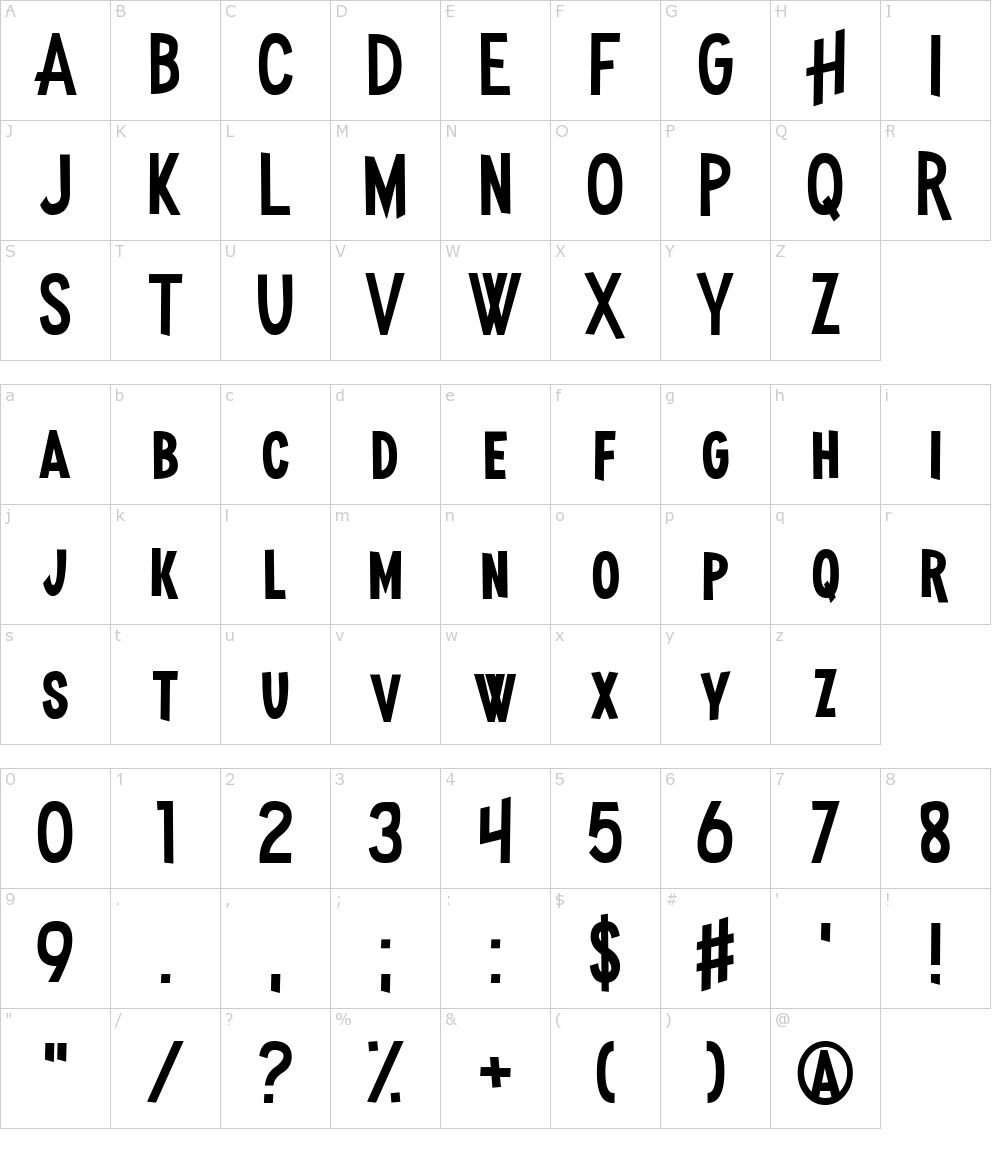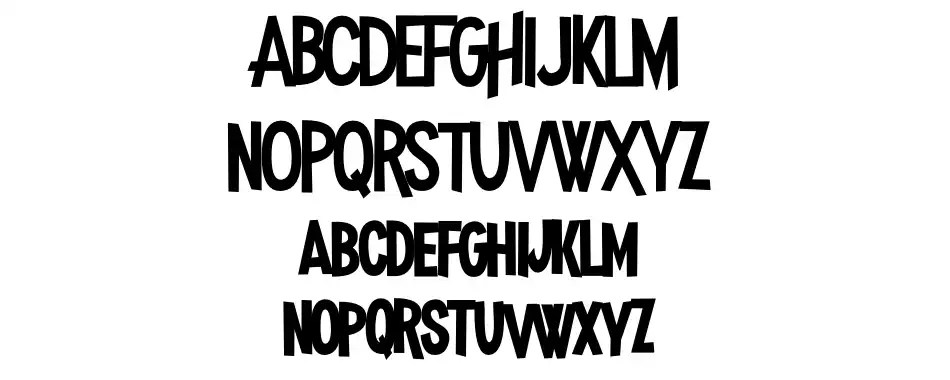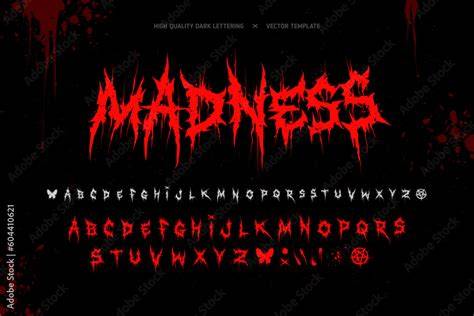
A Comprehensive Guide To Madness Fonts In 2023
What Are Madness Fonts?
Madness fonts are a unique type of typeface that has gained tremendous popularity in the last few years. They are characterized by their bold, colorful, and unique designs that are often described as “madness”. They are typically used in logos, branding, and other design projects to express a sense of creativity and excitement. As the name implies, madness fonts are often used to capture the craziness of life and the ever-changing nature of the world.
The popularity of madness fonts has grown dramatically in recent times, with more and more people taking an interest in these unique typefaces. While some may view madness fonts as a bit too “out there” for their own tastes, it’s hard to deny the impact they can have on any design project. By using these typefaces, designers can create a unique and exciting look that stands out from the crowd and expresses a certain sense of creativity.
How to Find Madness Fonts in 2023
Finding madness fonts in 2023 is easier than ever before! With the proliferation of online typeface libraries, designers have access to a seemingly infinite selection of madness fonts to choose from. Many of these libraries also offer a variety of options such as different weights, styles, and versions of madness fonts, allowing designers to easily customize their designs to their needs.
In addition to online libraries, many typeface designers also offer their own madness fonts. These typefaces often have a more personal touch and can help to create a unique and original design. It’s also worth noting that many of these typefaces are free to use, so designers can experiment with different madness fonts without having to break the bank.
What to Consider When Using Madness Fonts
While using madness fonts can be a great way to create a unique and eye-catching design, it’s important to consider a few things before using them. Firstly, it’s important to make sure that the madness font you choose is appropriate for the project you are working on. Madness fonts are best when used to create designs that convey a sense of playfulness and creativity, so it’s important to make sure that the font you choose is appropriate for the tone of your project.
It’s also important to think about the legibility of the font. While madness fonts can be a great way to create an exciting and unique design, they can also be difficult to read if they’re not used correctly. When choosing a madness font, make sure to look at the font’s x-height and contrast, as these can make a huge difference in how readable the font is.
Madness fonts have become increasingly popular in recent years, and for good reason. They can be a great way to add a unique and creative touch to any design project. With the proliferation of online typeface libraries and typeface designers, finding the perfect madness font in 2023 is easier than ever before. Just make sure to consider the tone of your project and the legibility of the font when making your choice!